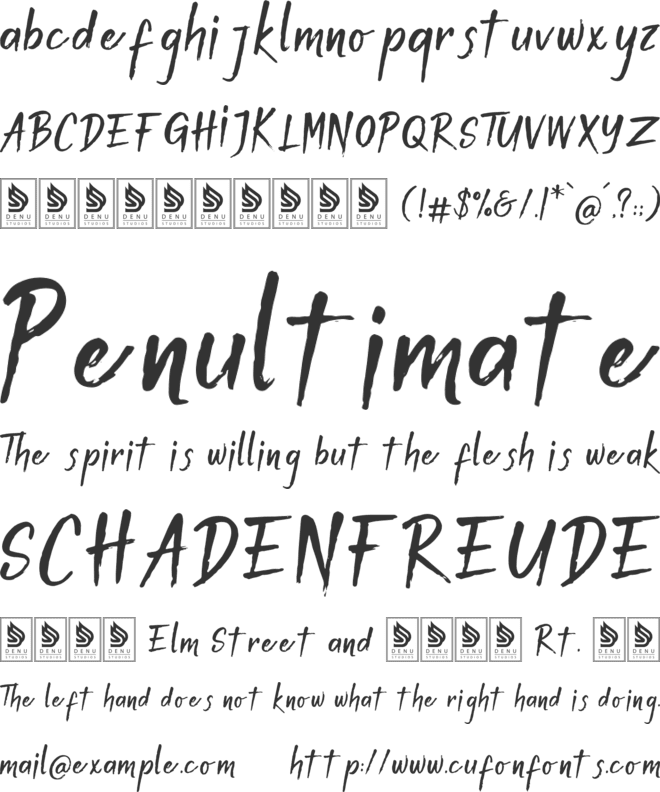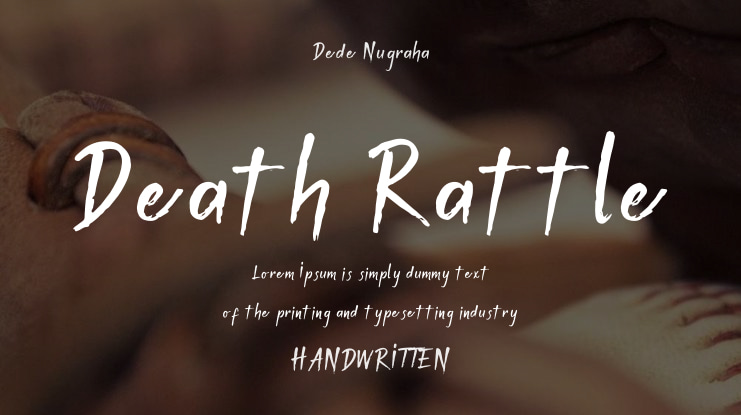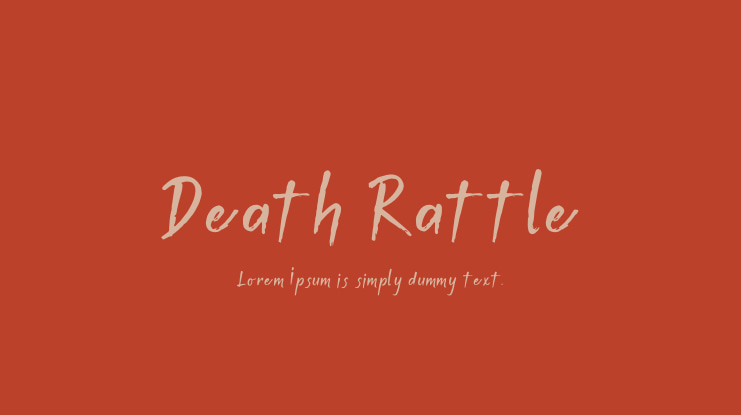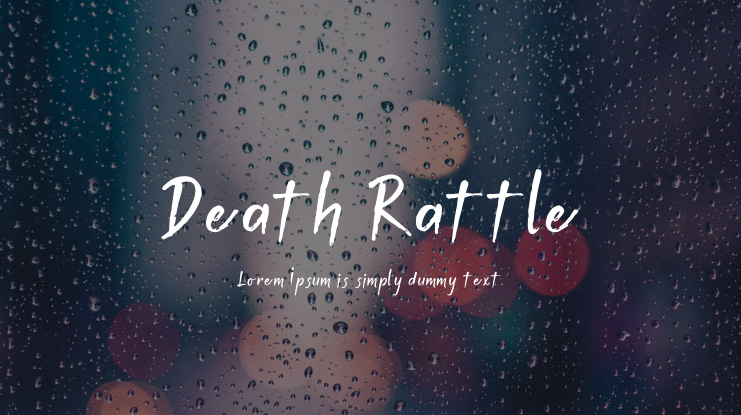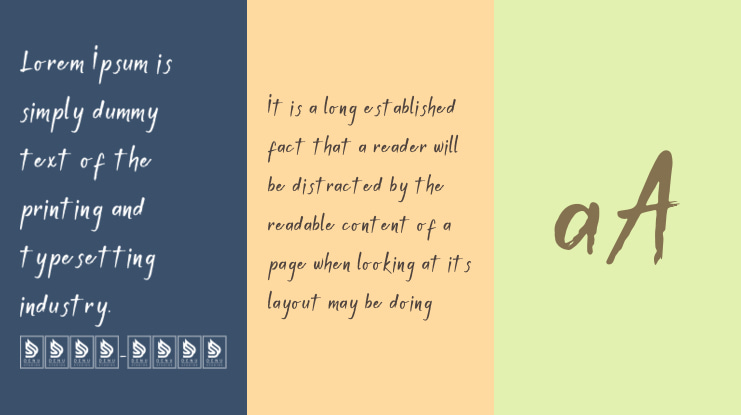
Death Rattle Font
Death Rattle | Brush Horror Display is suitable for various projects such as logos, branding, homeware designs, product packaging, mugs, quotes, posters, shopping bags, t-shirts, book covers, name cards, invitation cards, greeting cards, labels, photography, watermarks, special events, and any other projects that could benefit from a Brush Horror Display feel.